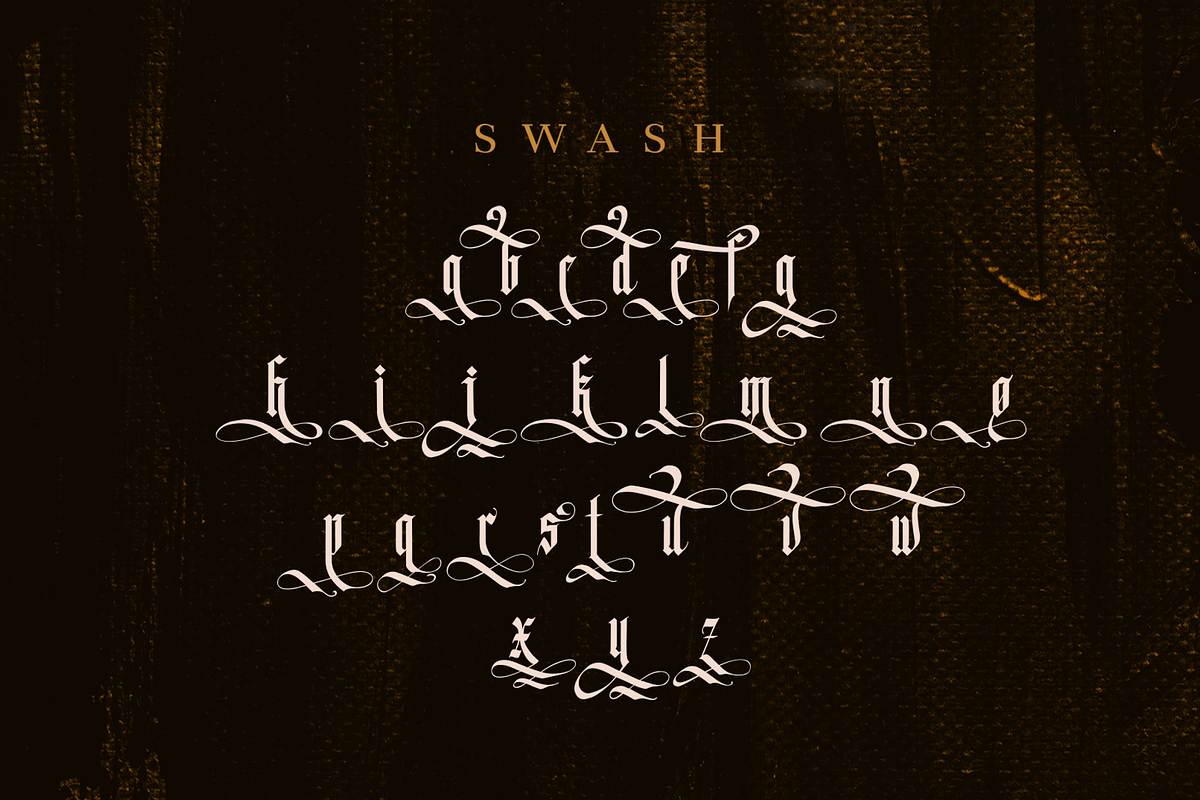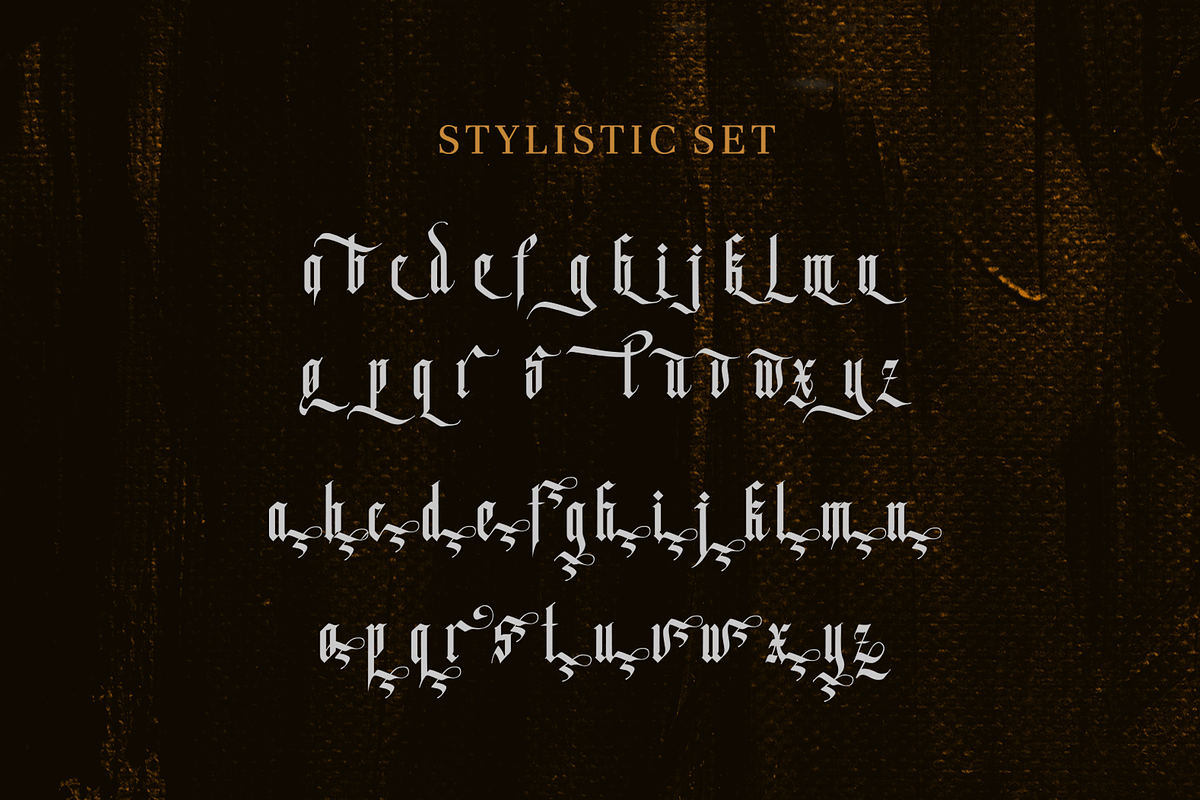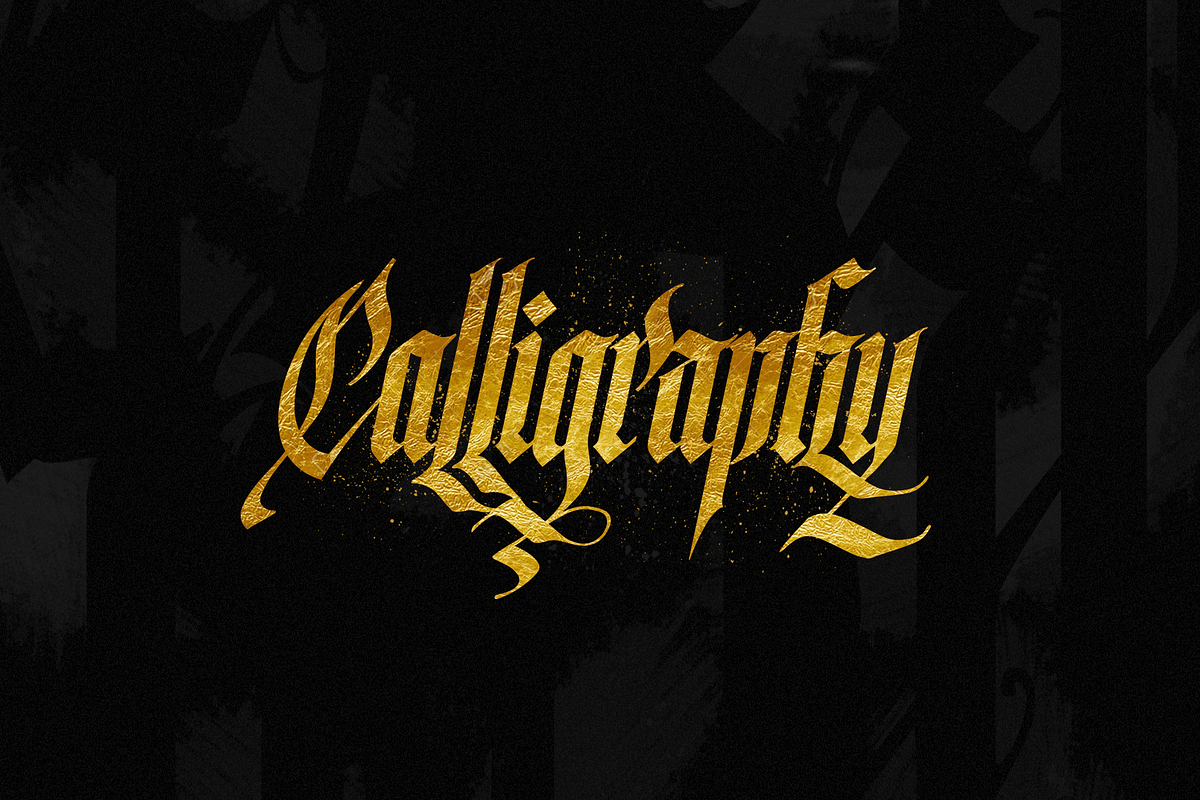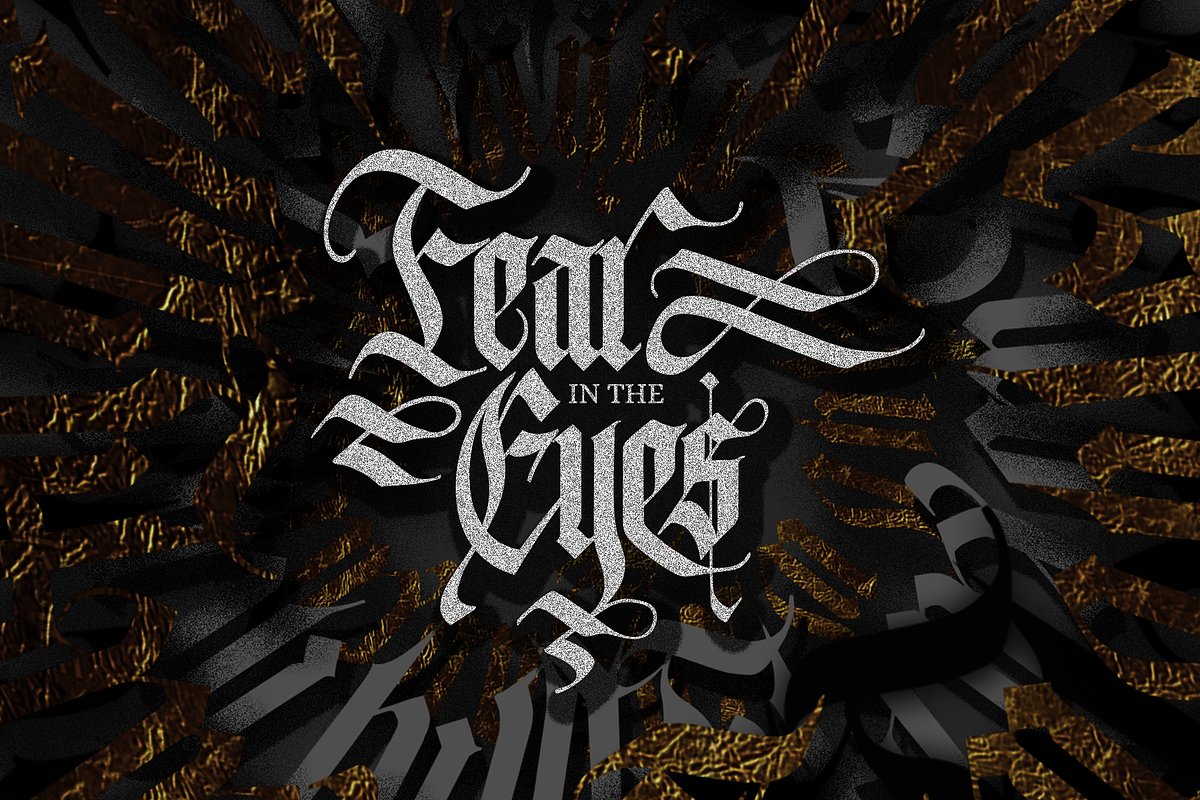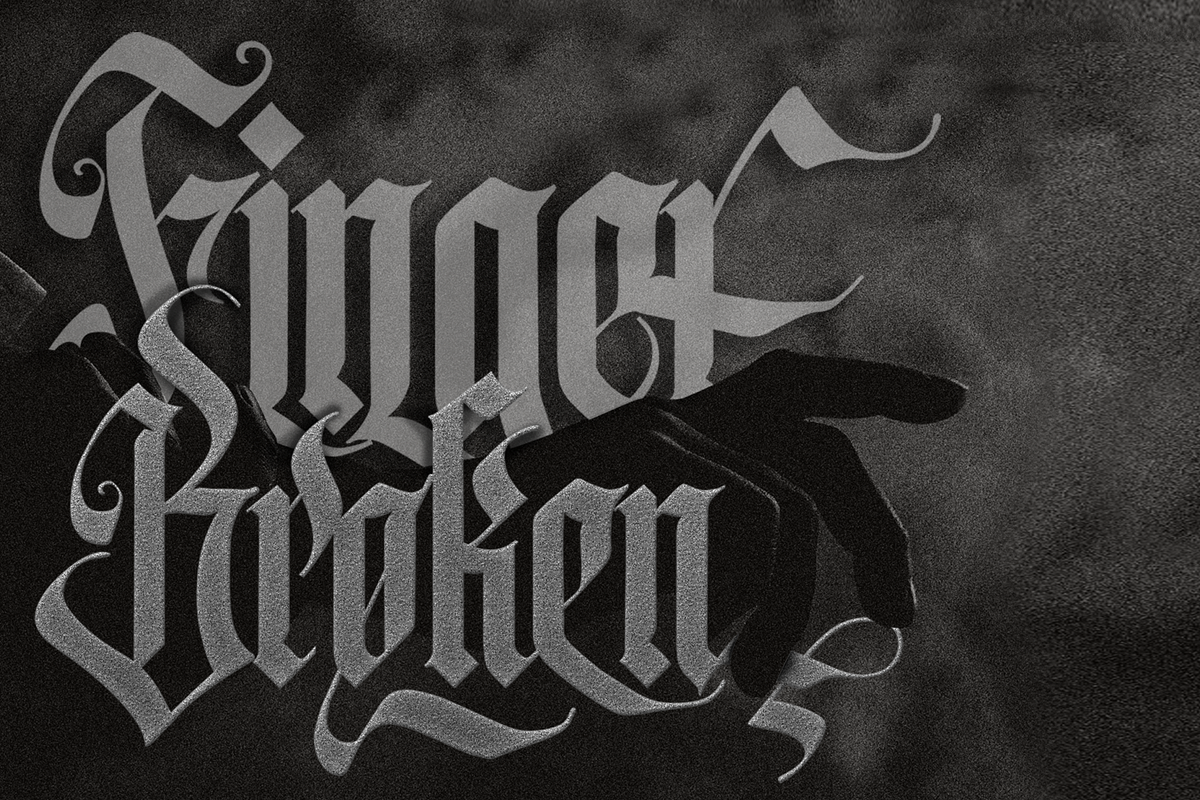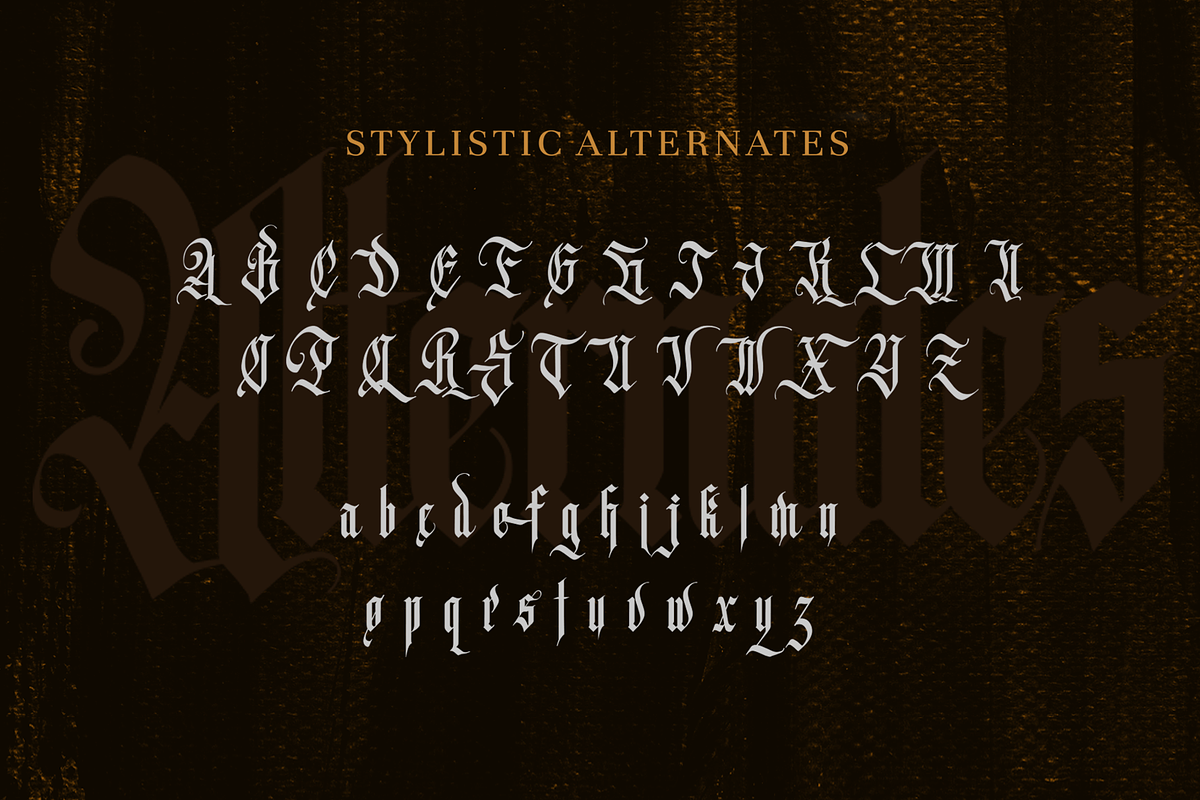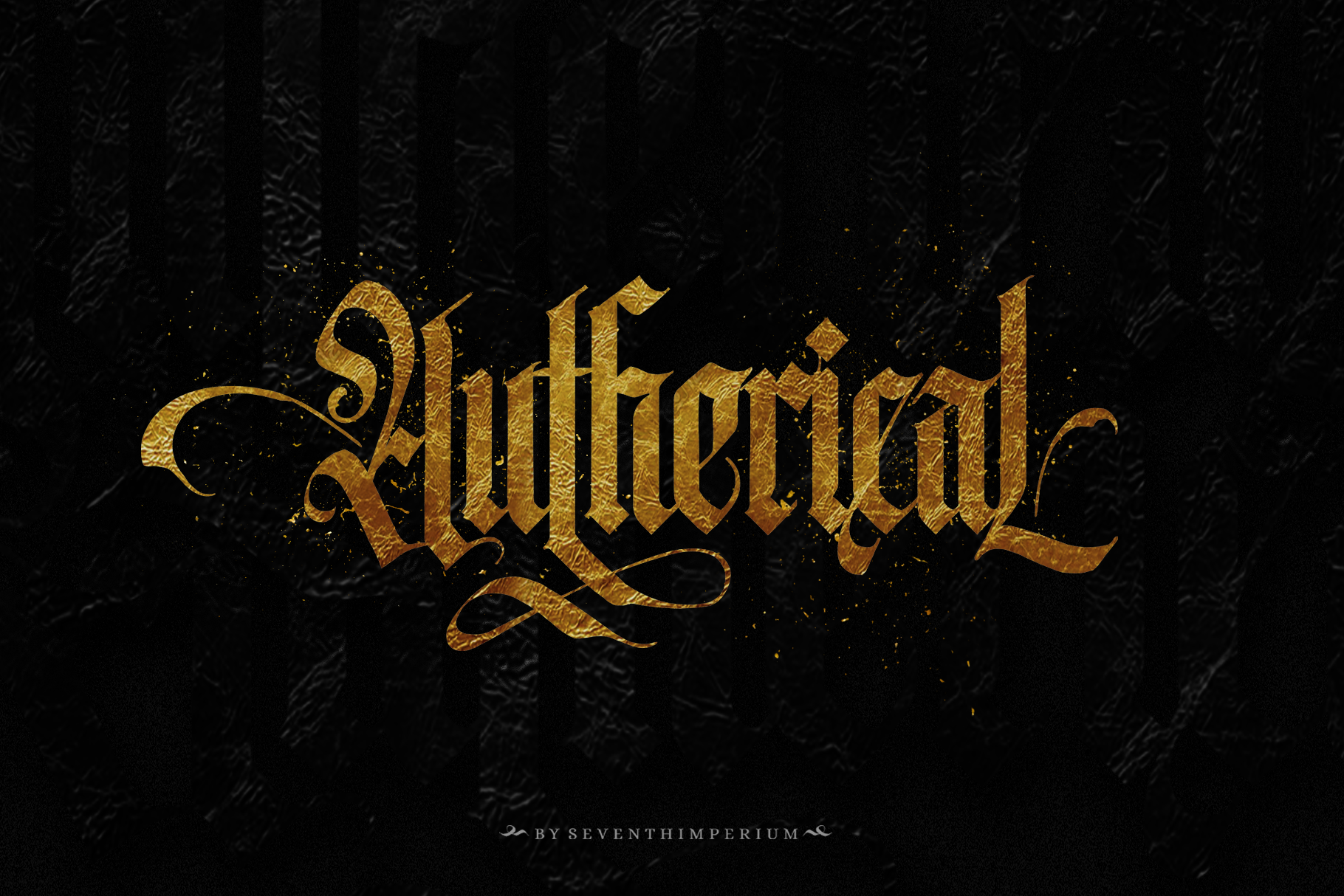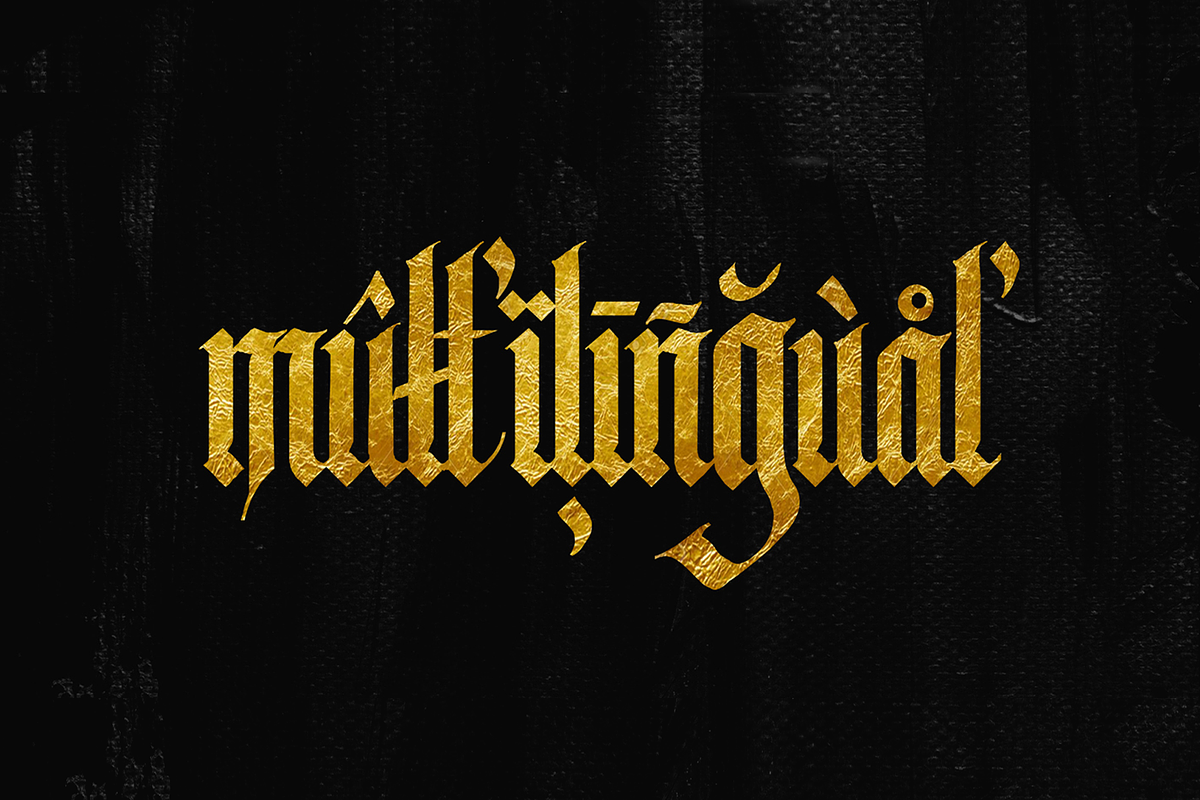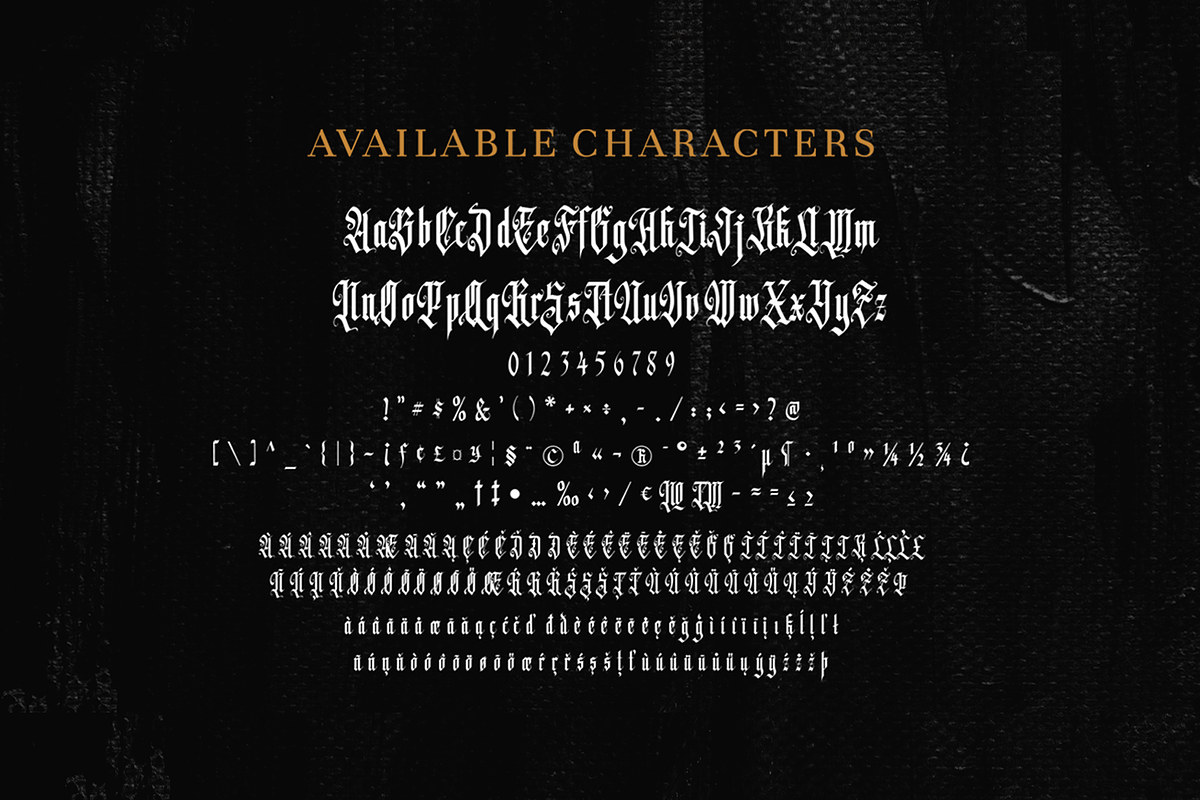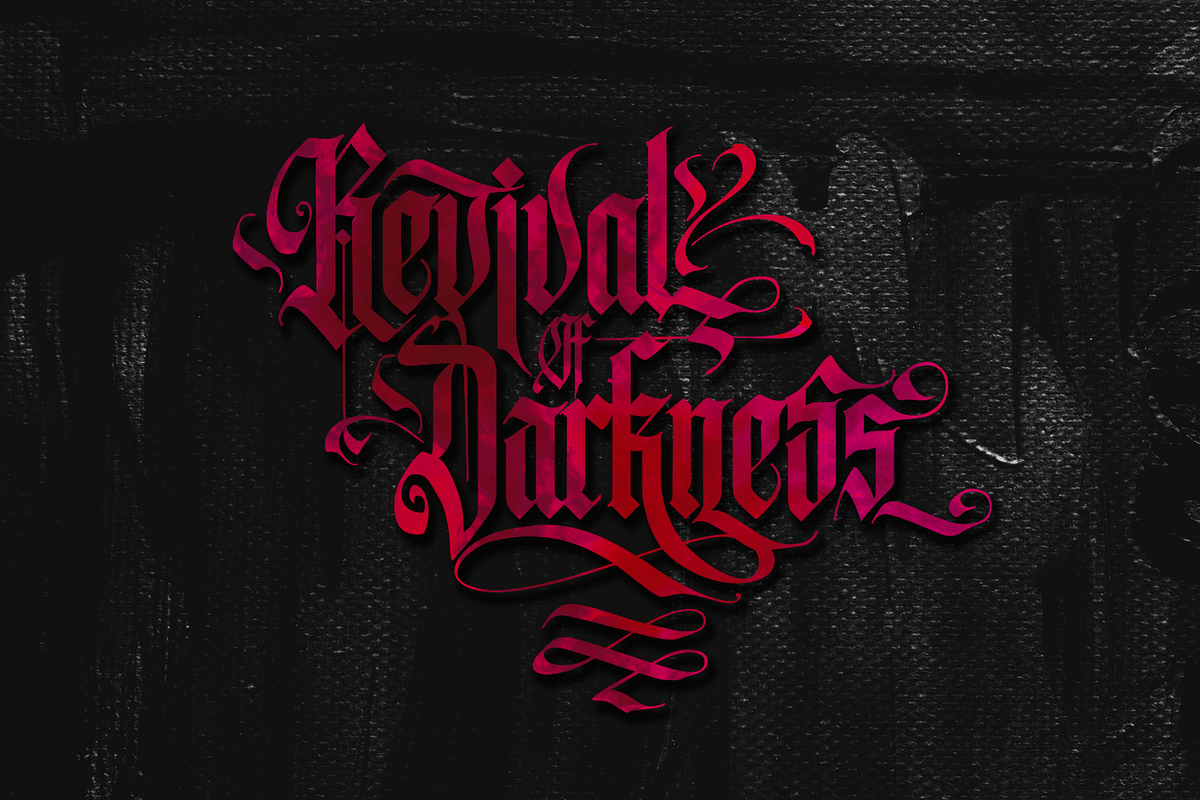
Autherical Typeface
Autherical is old and stylish, was inspired by old fraktur calligraphy. This typeface comes with two version regular and slant. Also comes with extra ornament and multilingual characters support. more than 400 glyph and lots of alternates, comes with a variety of ligatures and alternative forms, available through OpenType features, or access the all alternates by PUA code, create you boldest old stylish on your designs with this typeface.
- Features :
- Latin A-Z and a-z
- Stylistic Set